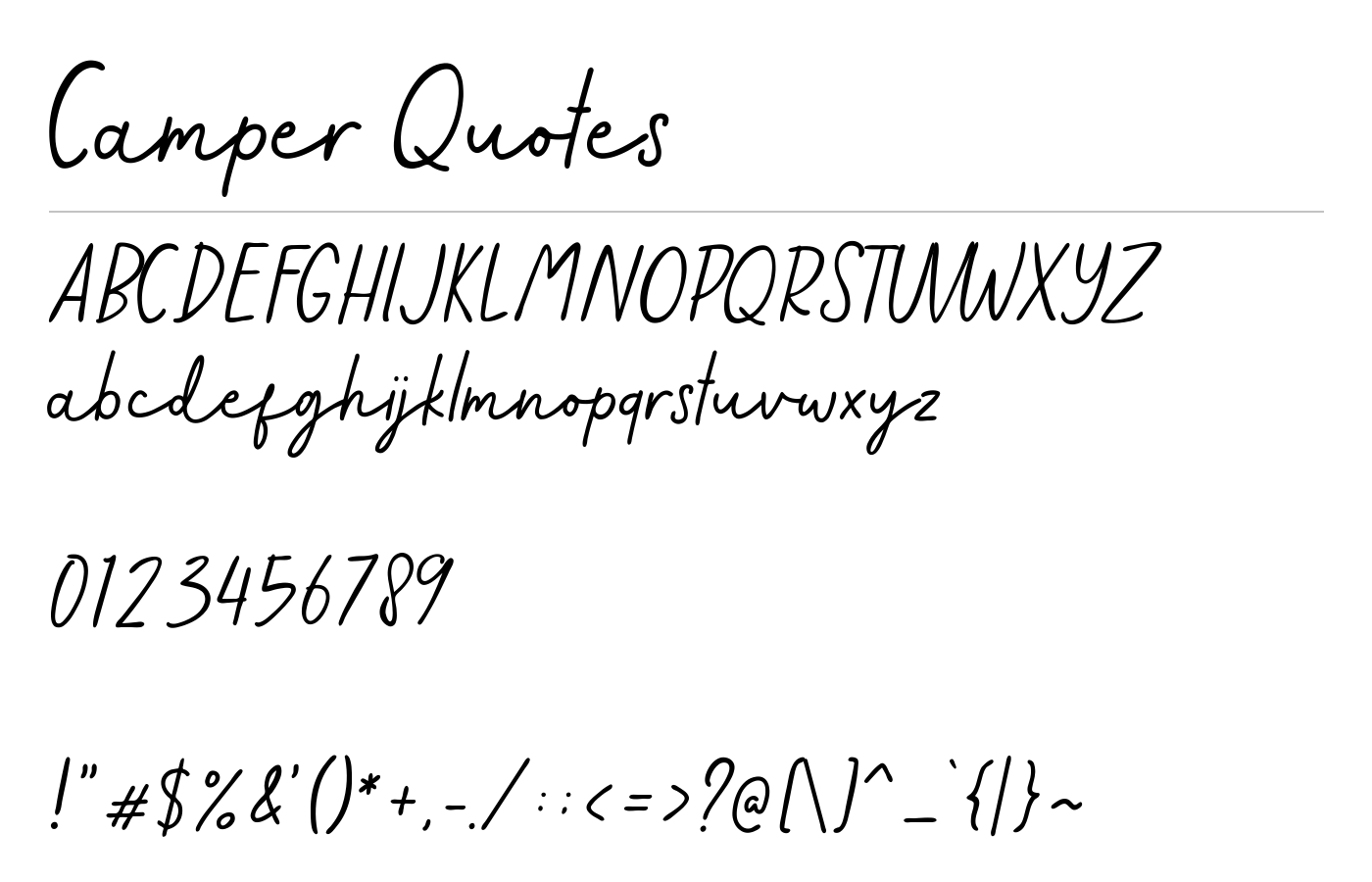
Camper Quotes is a light, handwritten script font with a casual and friendly feel, featuring tall, narrow letterforms and smooth, consistent strokes that evoke a personal, informal tone. Its simple, airy design makes it ideal for personal projects, quotes, and creative branding that seeks a warm, approachable, and authentic look. This font works well in headlines, social media graphics, and any setting where a relaxed yet legible handwritten style is desired.
Camper Quotes Font
About Camper Quotes Font
| Font family | Camper Quotes Font |
| Designer | Rizaldi Wandani |